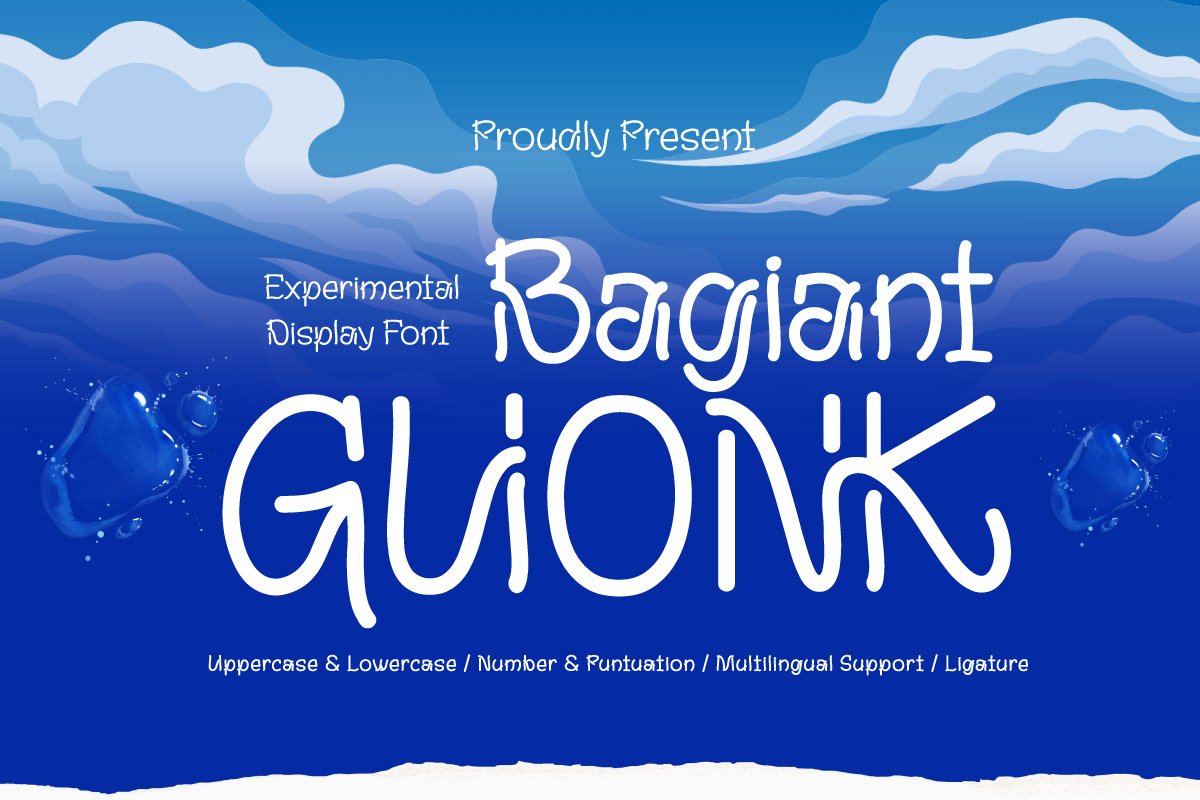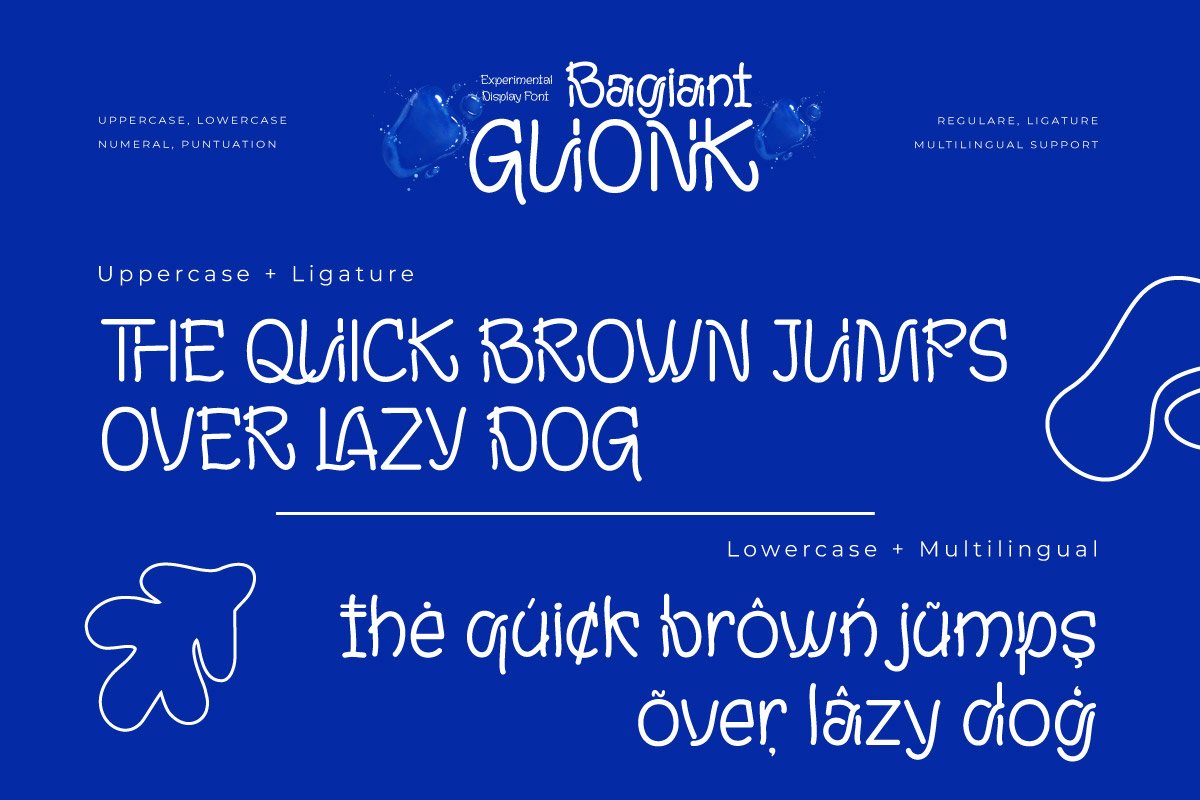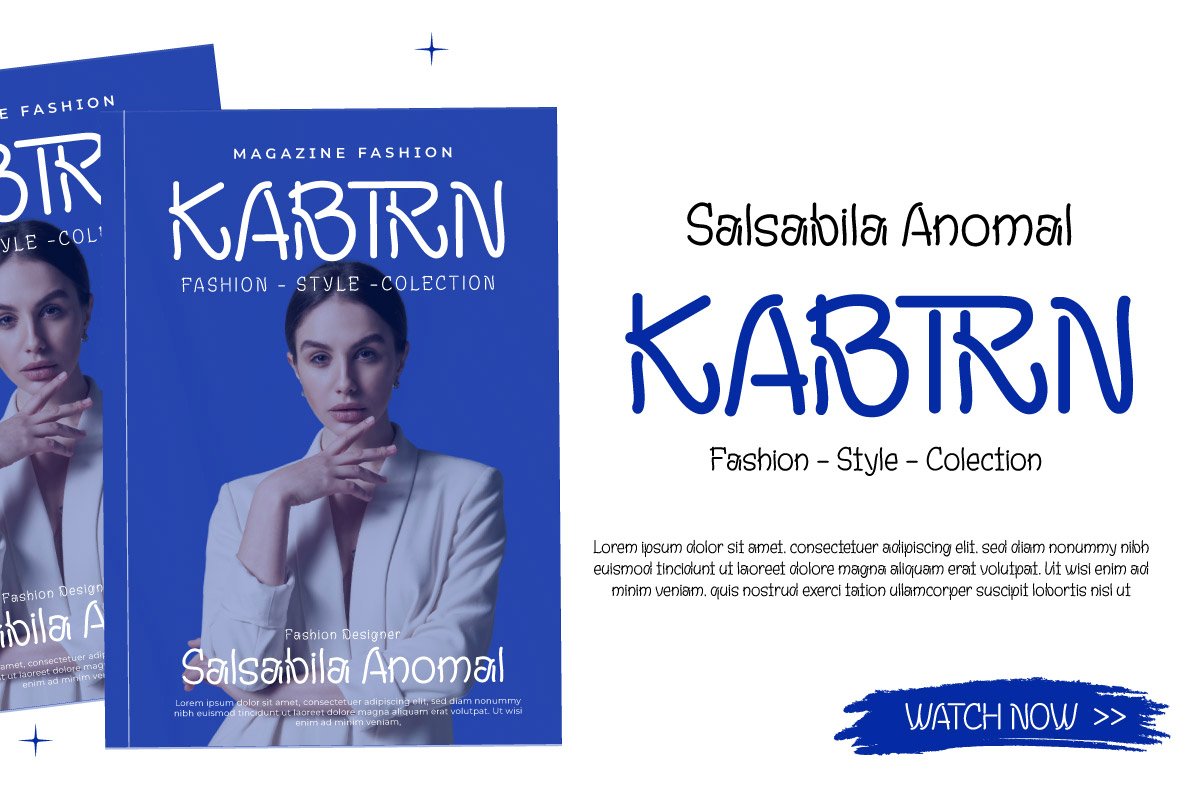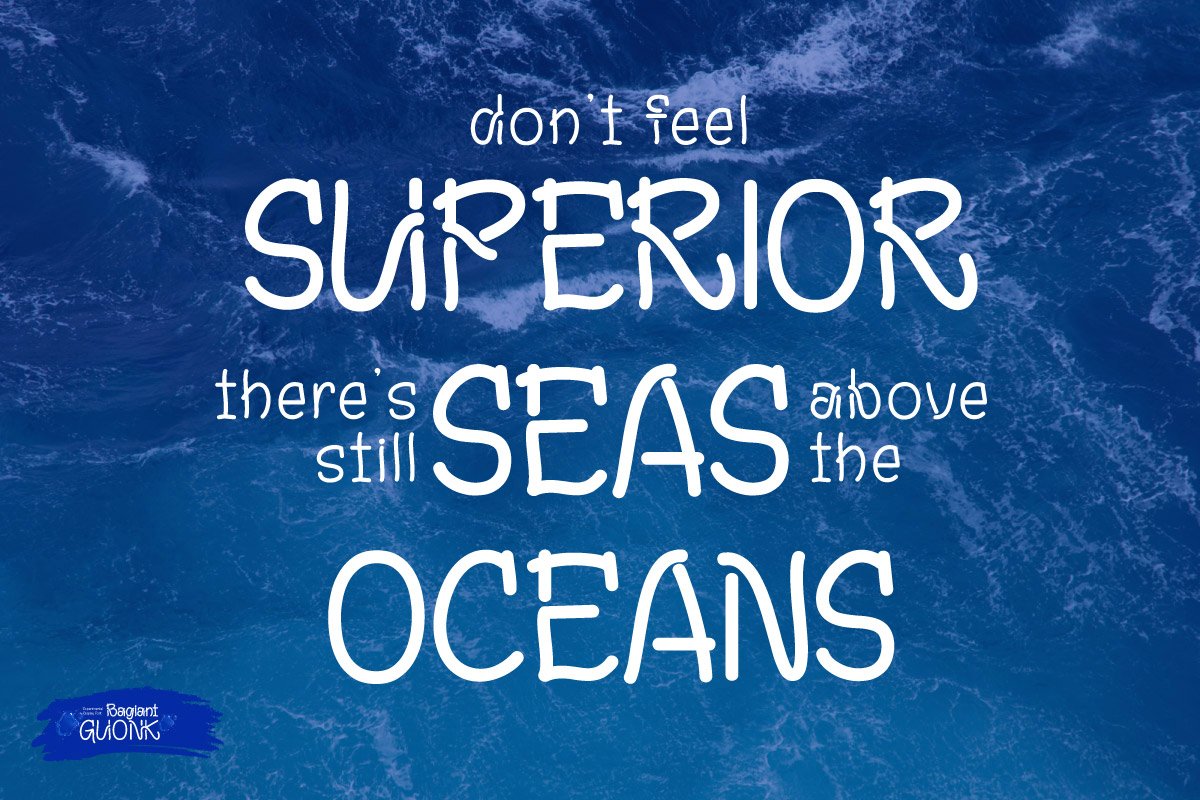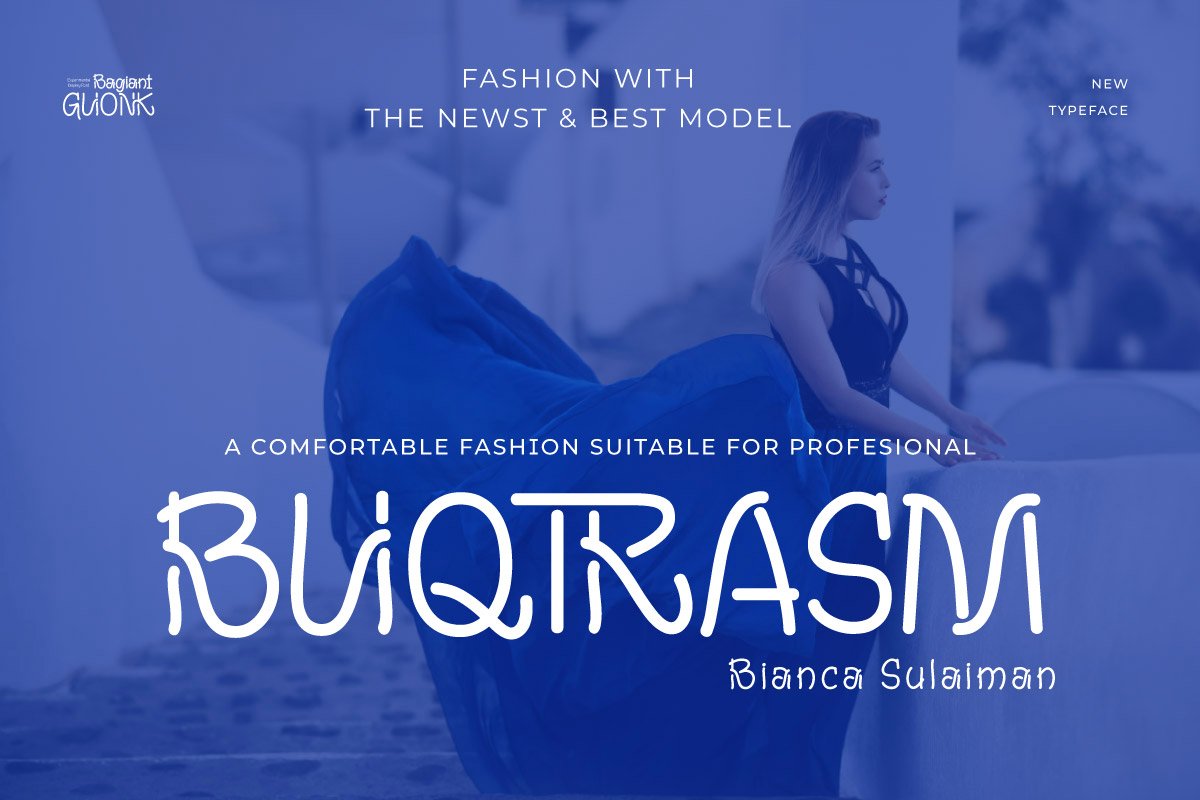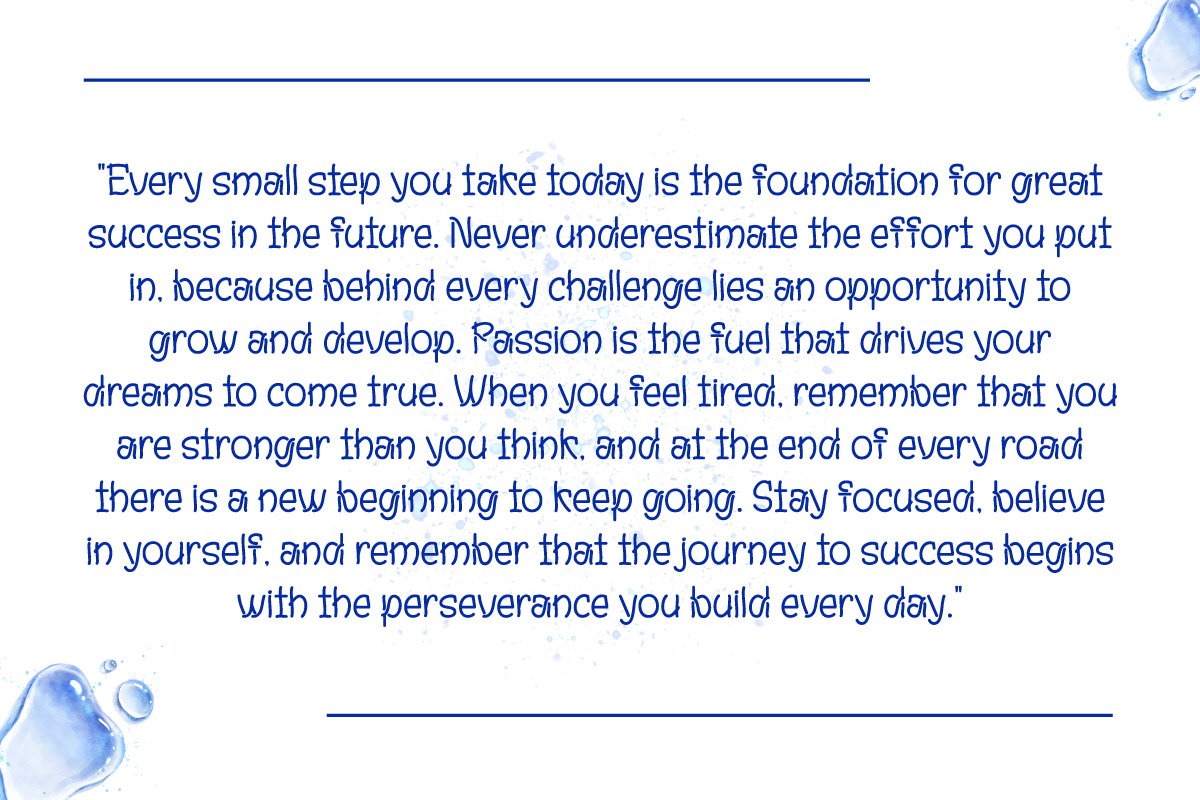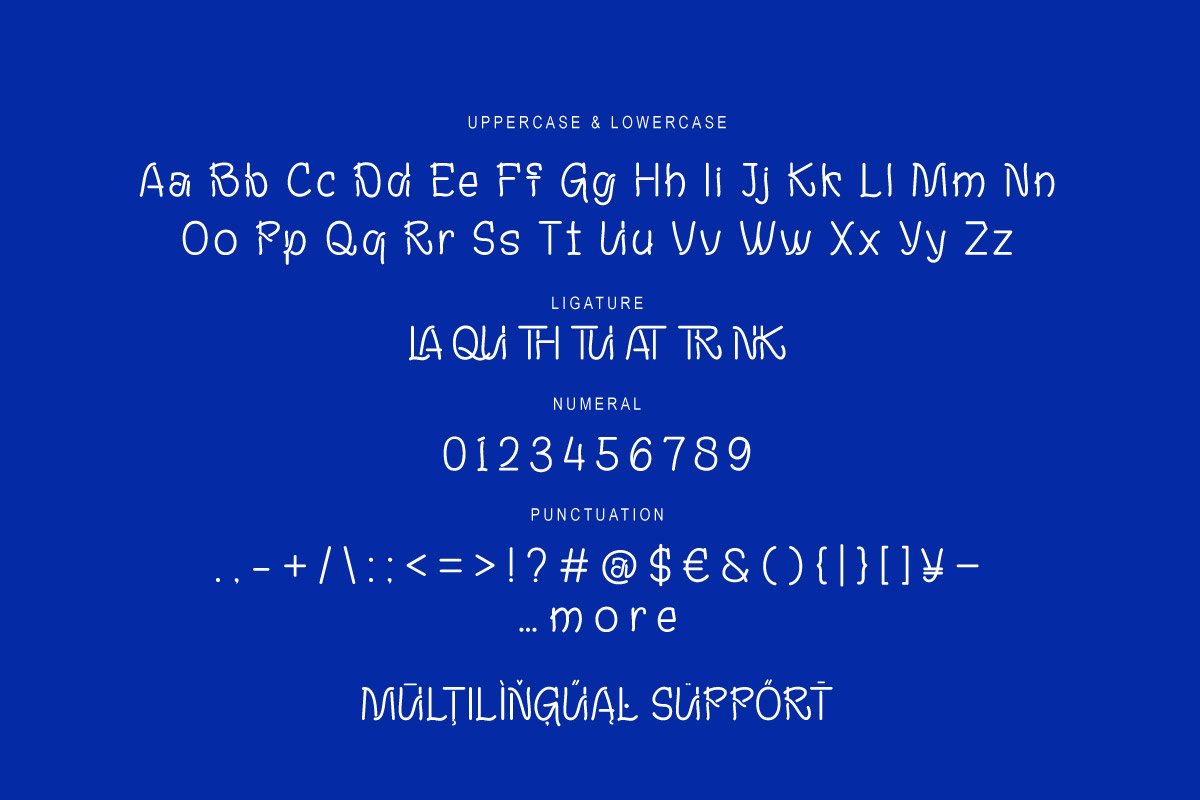
5. Bagiant Guong – Experimental Display Font
Bagiant Guong – Experimental Display Font
Bagiant Guong is an avant-garde experimental display font designed to break the boundaries of traditional typography. With bold, dynamic strokes and uniquely crafted letterforms, this font is a daring choice for creatives who want their designs to stand out. It’s perfect for projects that demand attention and convey innovation, such as cutting-edge branding, futuristic posters, conceptual artwork, and event promotions.
Bagiant Guong celebrates asymmetry and unconventional shapes, making it an artistic statement on its own. Each letter carries an enigmatic and daring style that defies predictability, creating an aura of modern sophistication and fearless creativity. Its versatility allows it to be both the centerpiece of your project and a complementary detail for abstract compositions.
Whether you’re crafting experimental visuals, a bold editorial layout, or even album artwork, Bagiant Guong offers you endless possibilities. Elevate your typography game with a font that speaks of rebellion, artistry, and ingenuity.